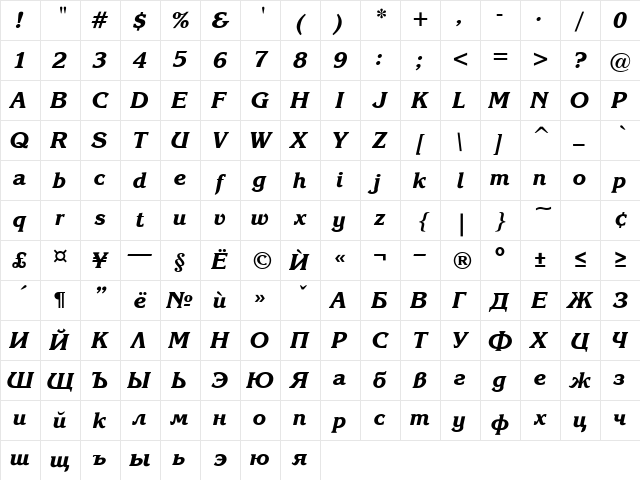
KarinaBlack Italic Free Font
KarinaBlack Italic
Design Context for KarinaBlack
KarinaBlack is a composed and adaptable typeface that performs quietly and consistently across a wide range of design contexts. The slanted form adds forward momentum and visual energy.
Pro Tip: Use KarinaBlack for emphasis, pull quotes, and subheadings where its slanted energy can add rhythm to the layout.